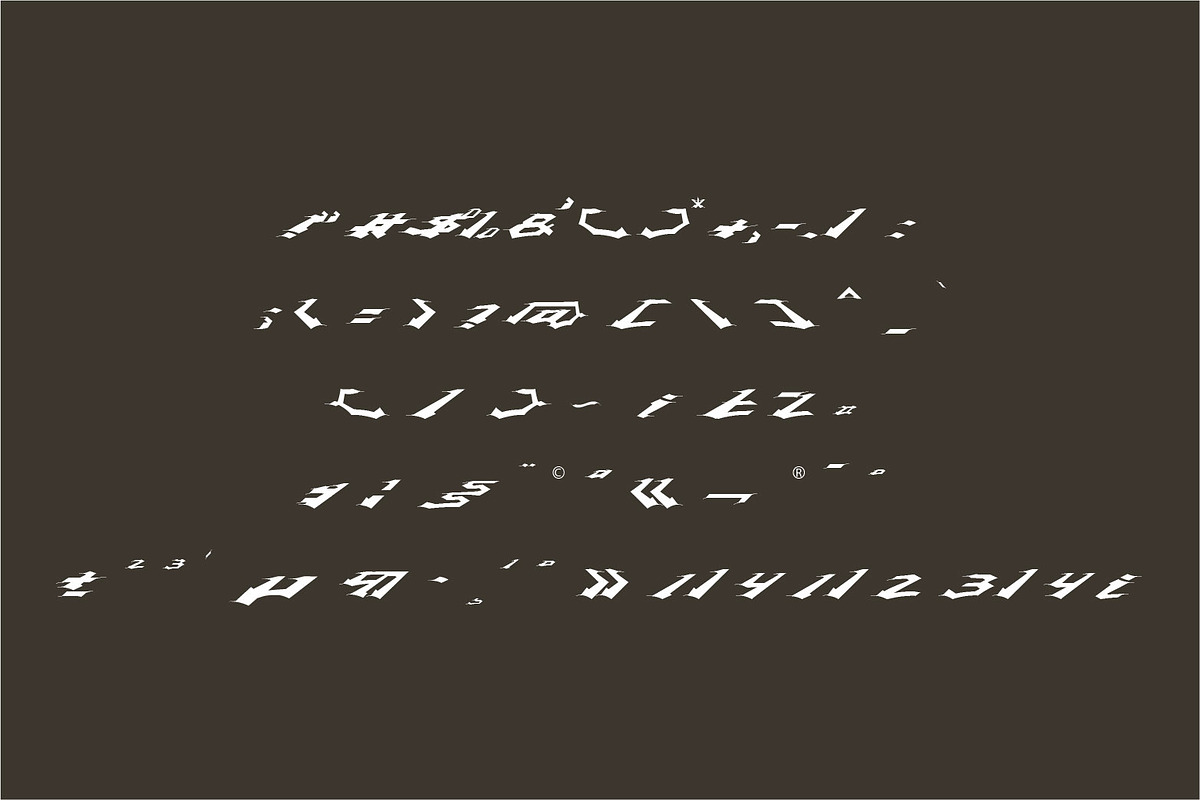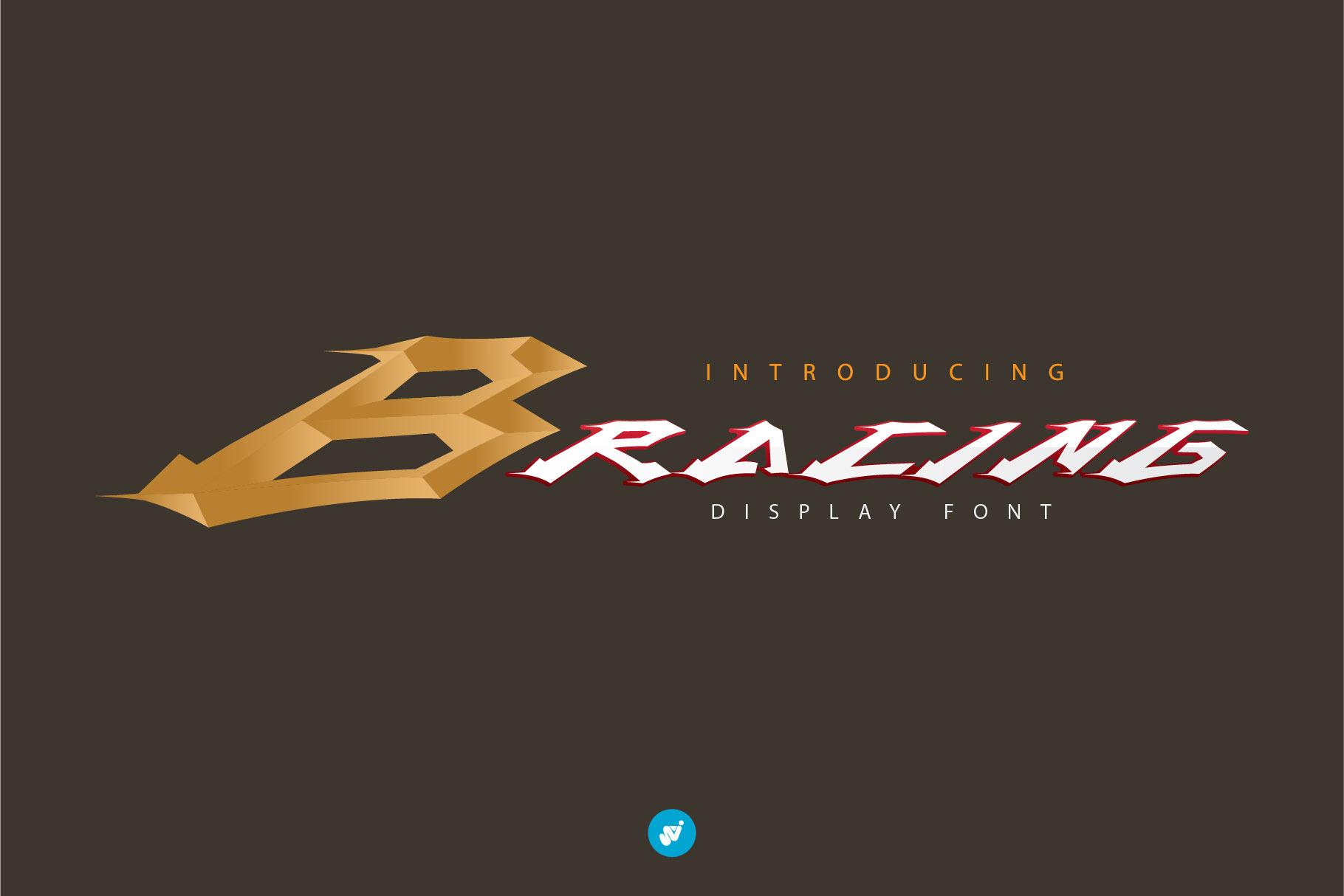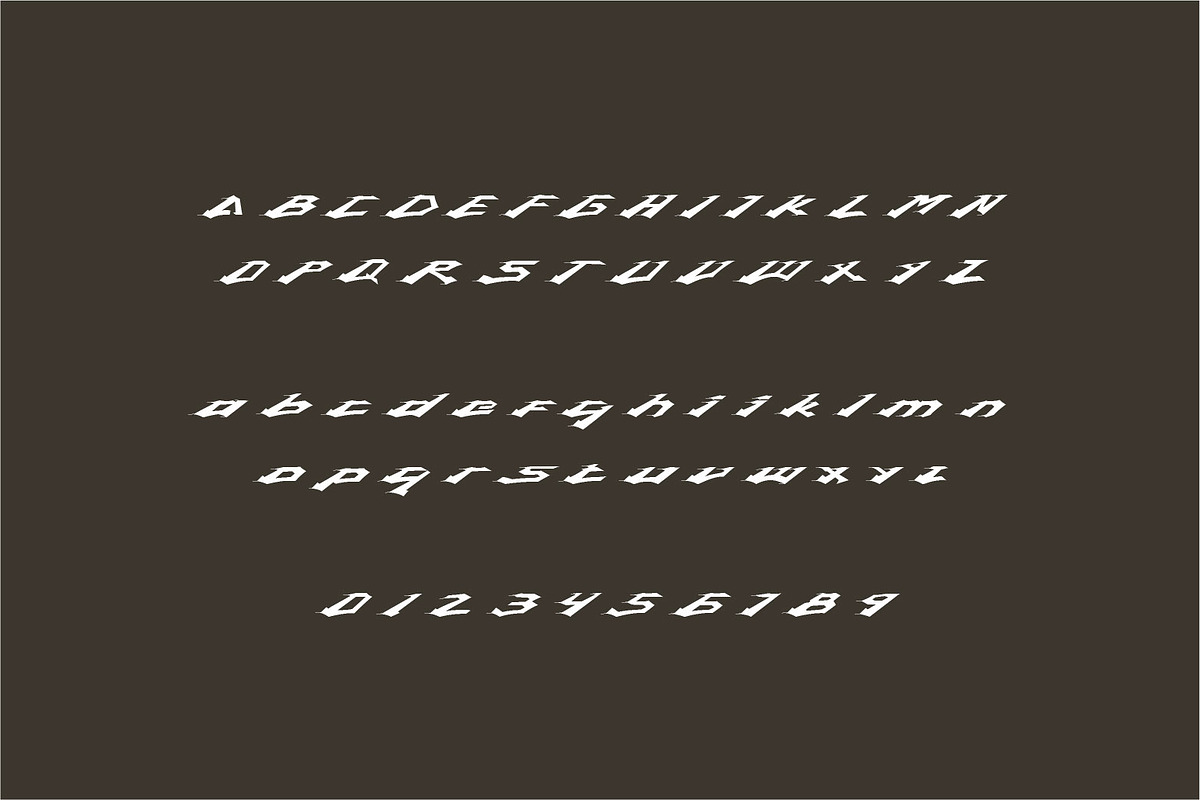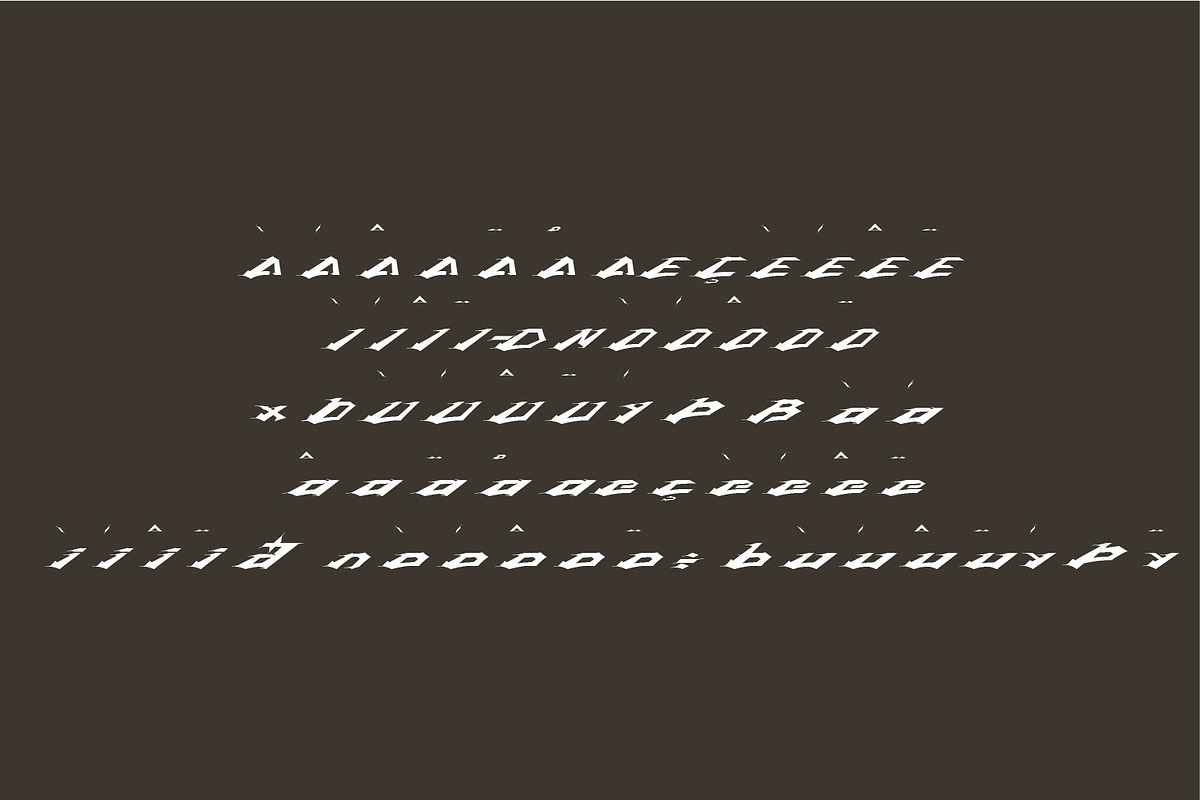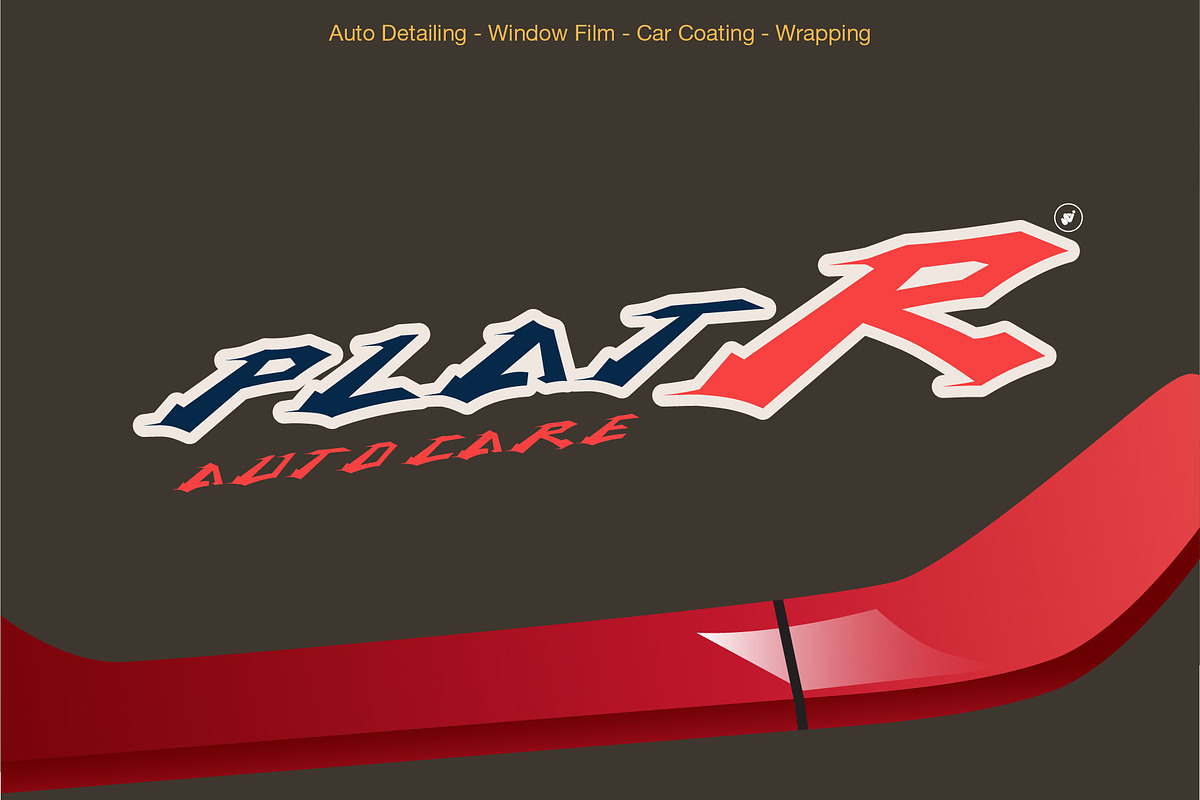
BRACING Headline Racing font
Hi Everyone! Introducing our newest font : BRACING ! This is a new modern “racing speed car motor theme” display font.
BRACING is a sophisticated cool font which will be perfect for branding, logo, sticker, decal, signage, flyer, brochure etc. There are many industries that is suitable for this font : car, racing, automotive, tournament, cup, futuristic startup, etc